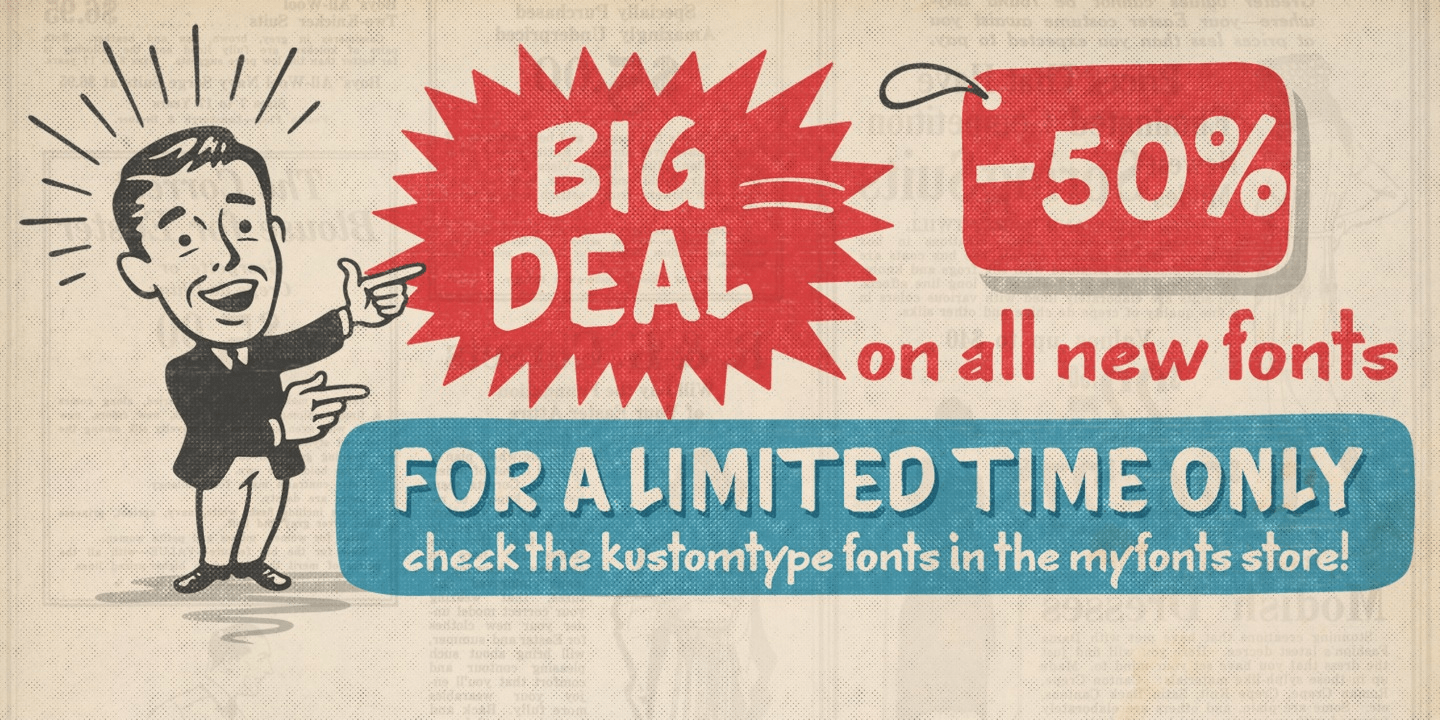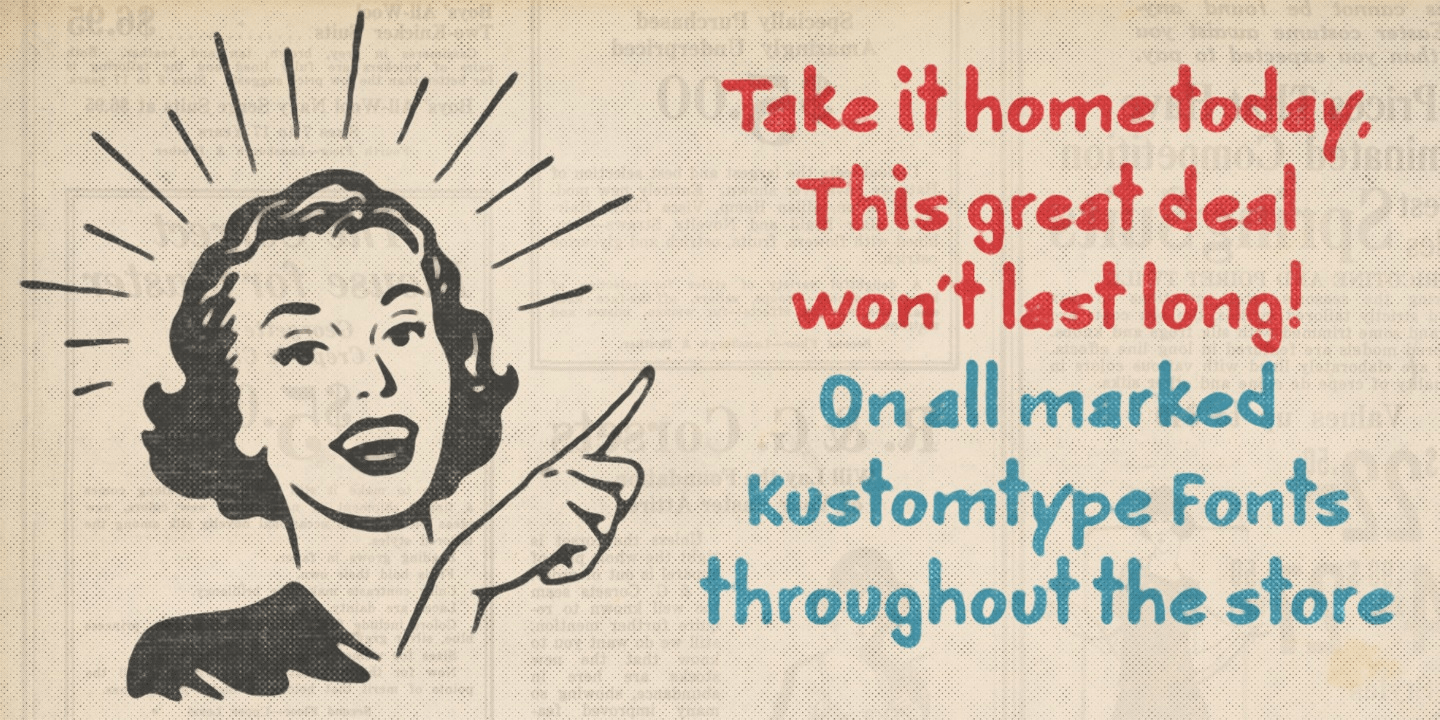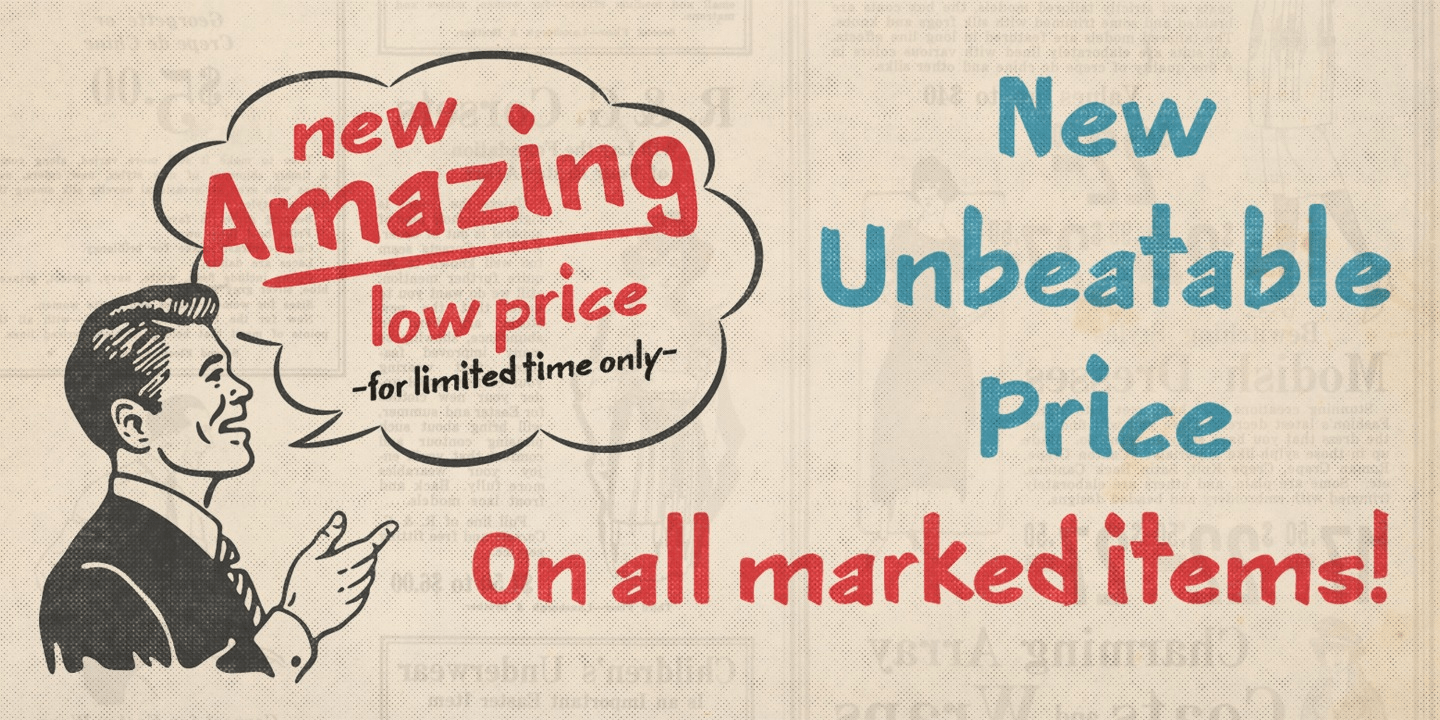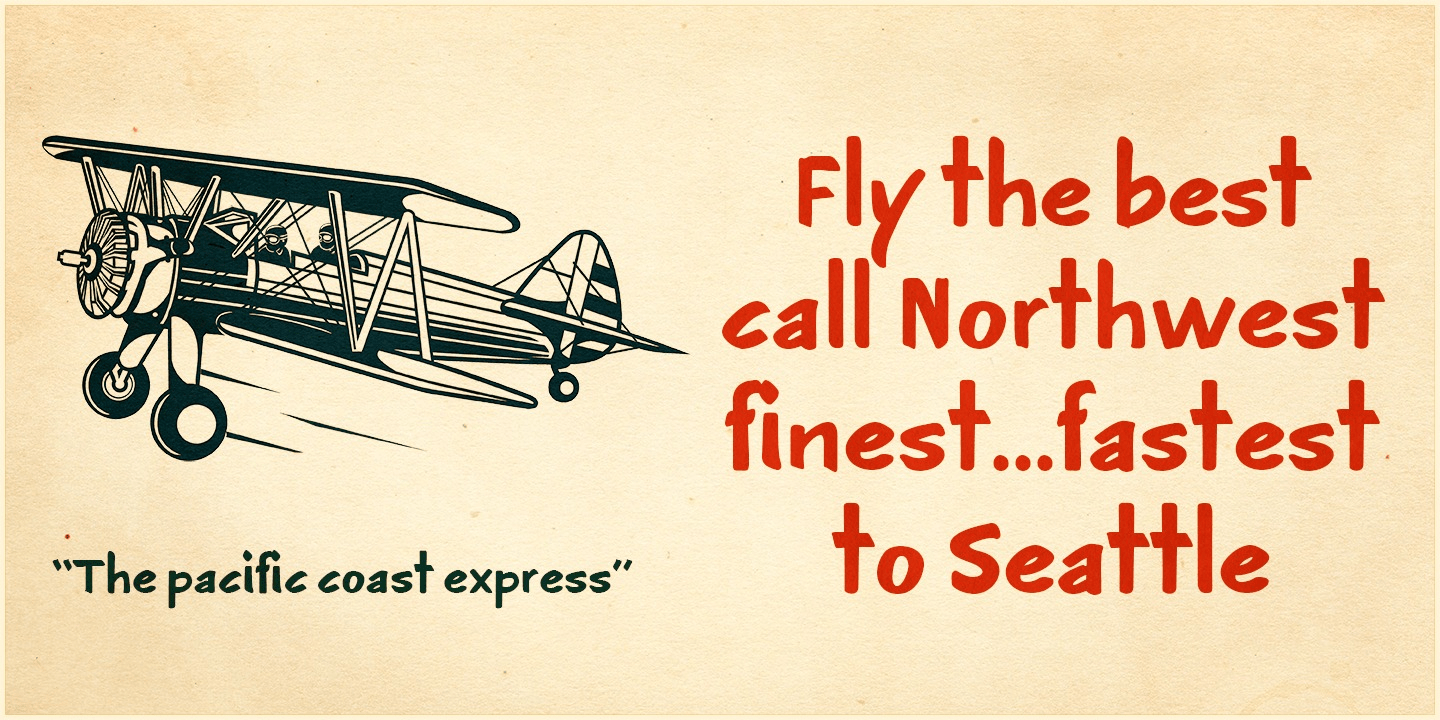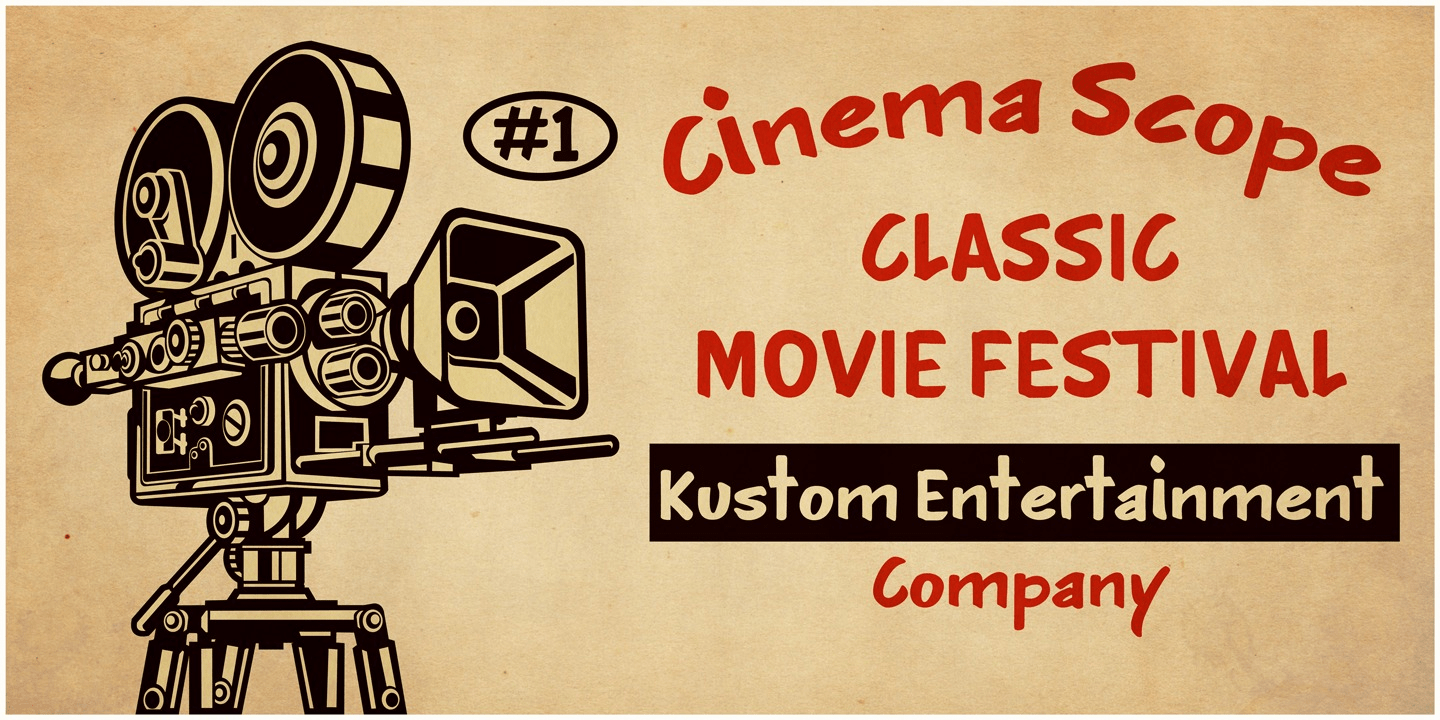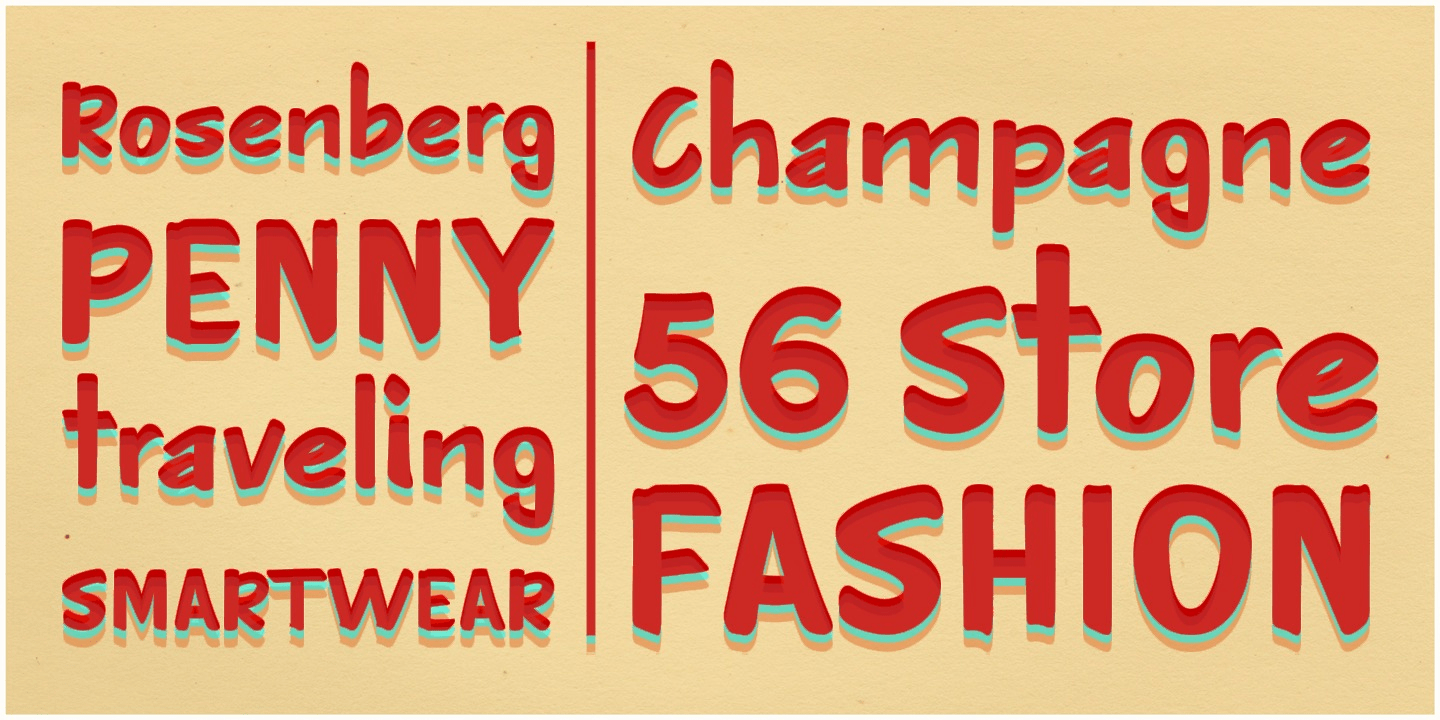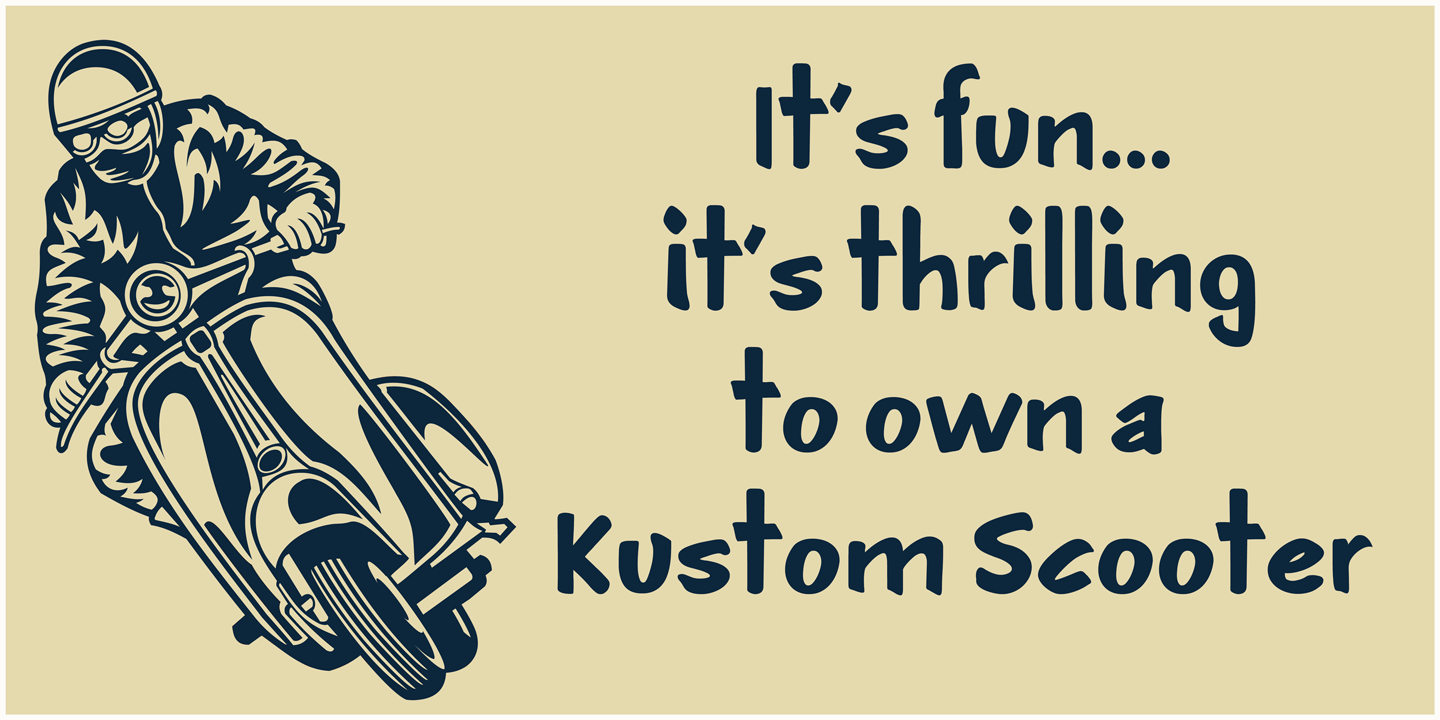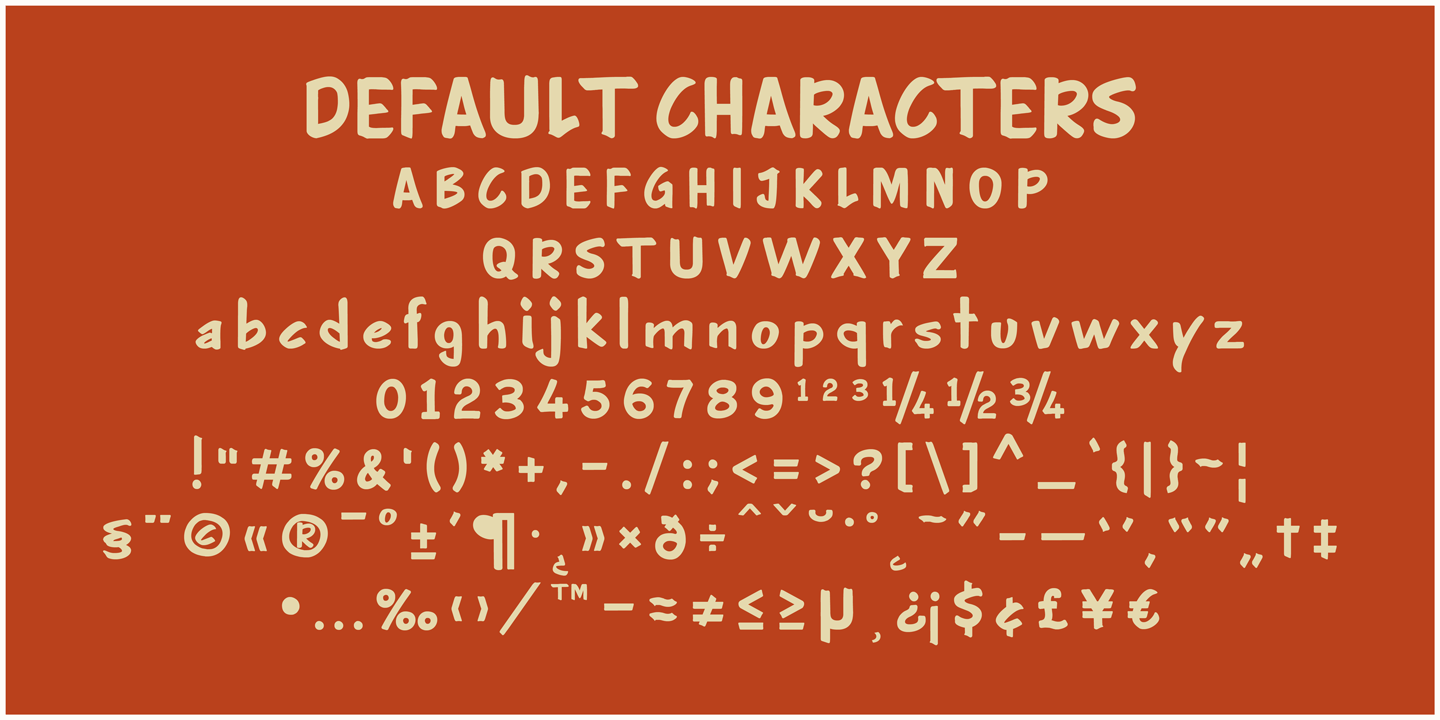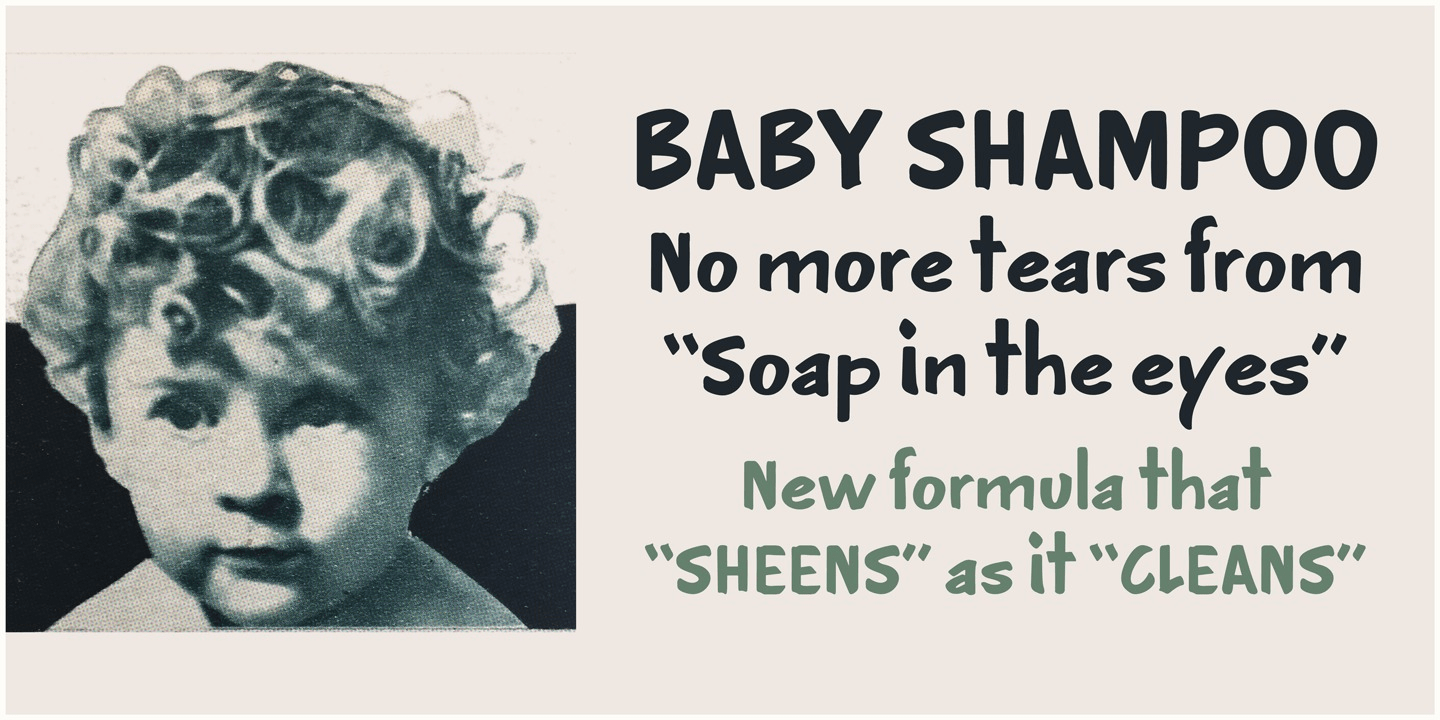
Luckystrikes
Font Family by Kustomtype
Introducing Luckystrikes, a handwritten script-font inspired by a poor amount of characters in the 1950-style advertising of the well-known American cigarettes. Kustomtype redrew this font with a very clear and cool old-script style. This font is great for all your creative projects. Luckystrikes comes with uppercase, lowercase, numerals, punctuations in script so you can use it to customize all your designs. Perfect to use for Logos, Letterhead, Poster, Apparel Design, Package design, Label design etc. Luckystrikes is designed by Coert De Decker in 2018 and published by Kustomtype Font Foundry.